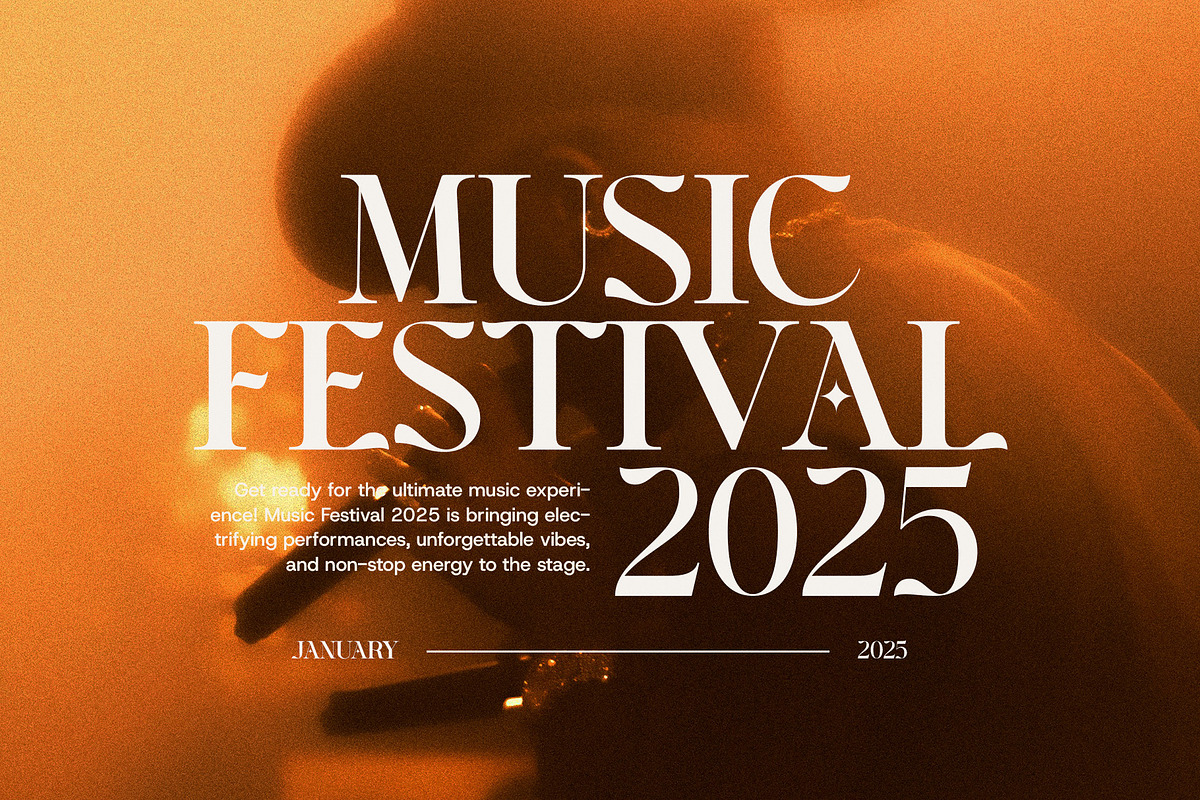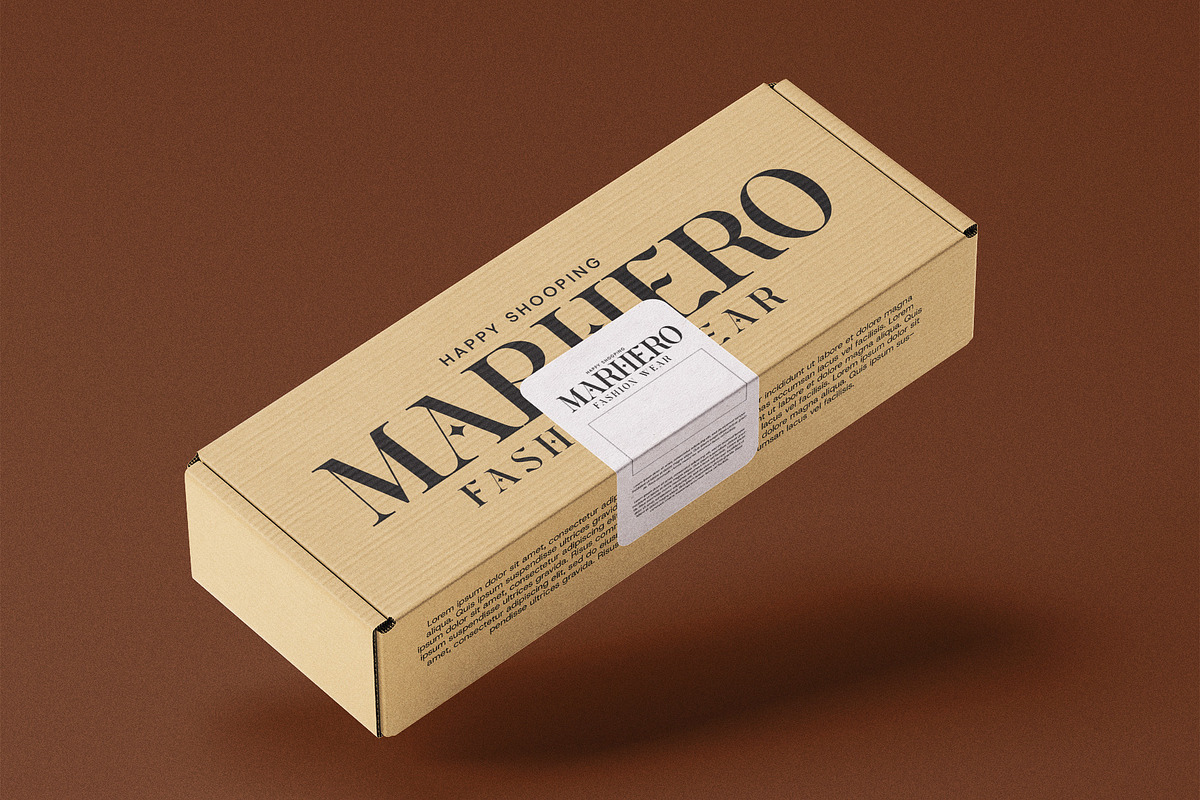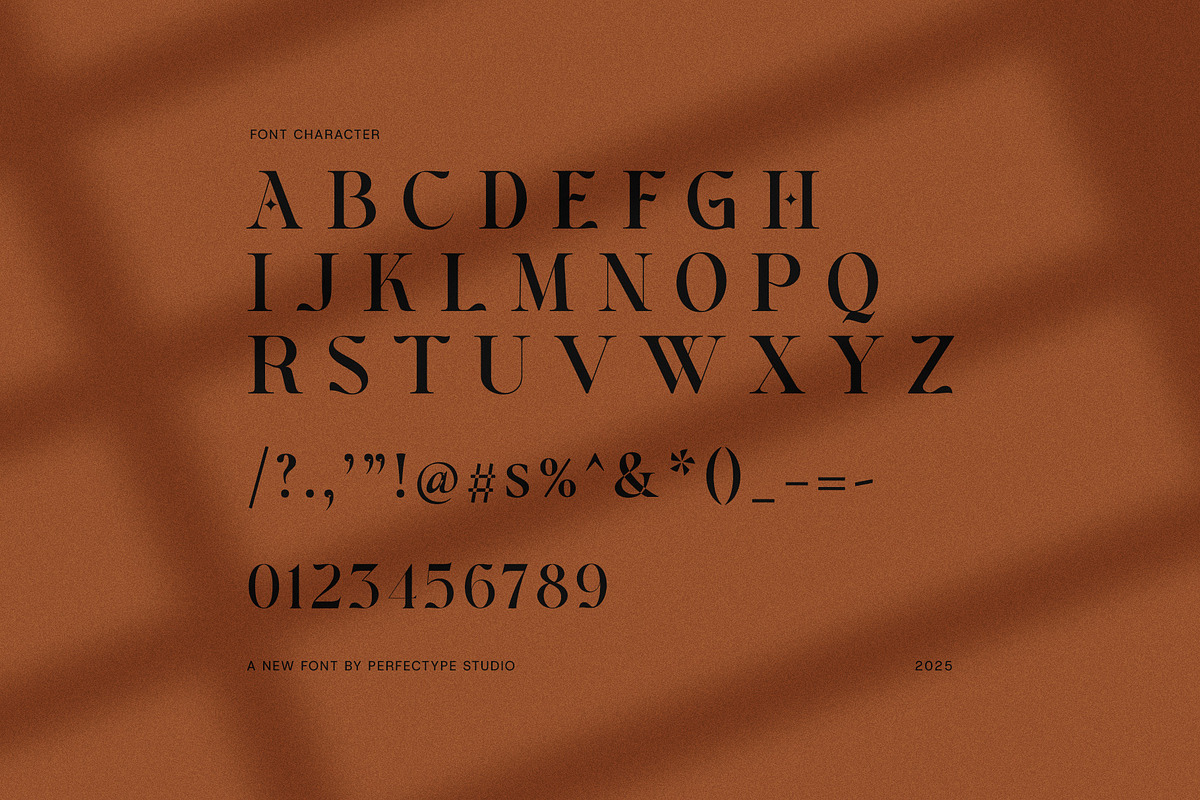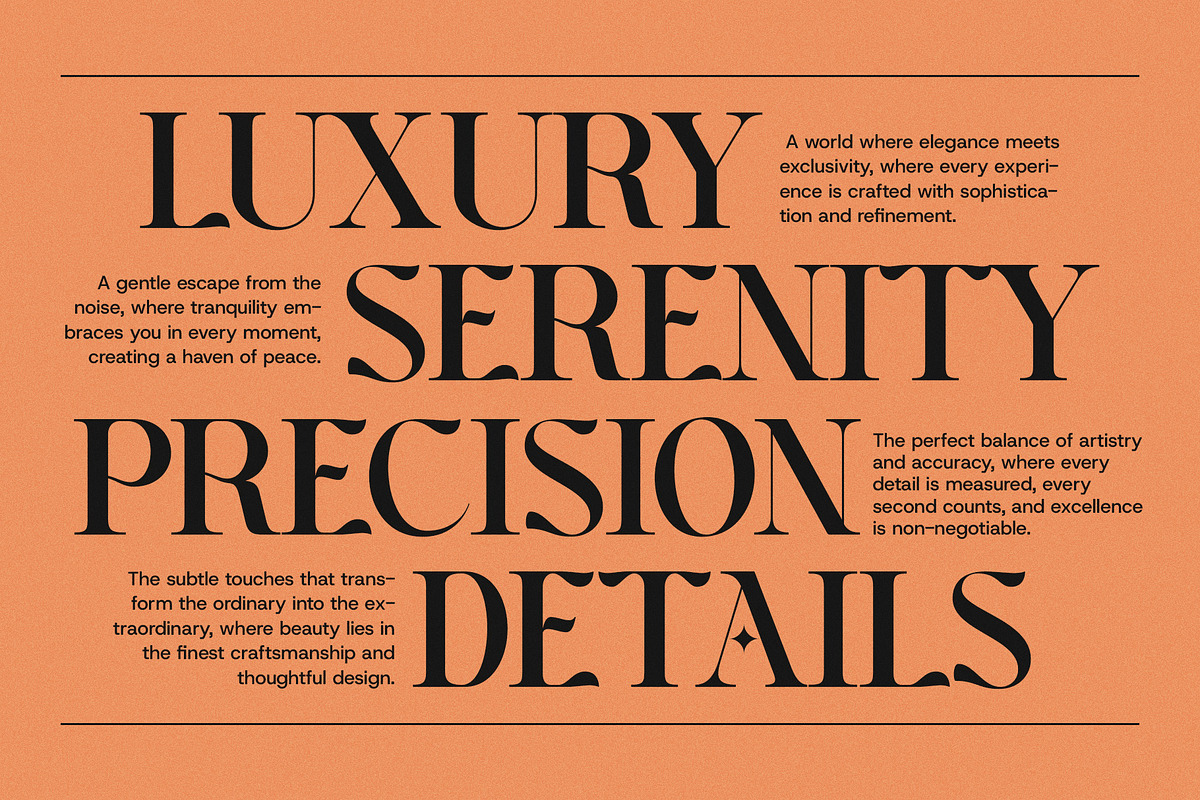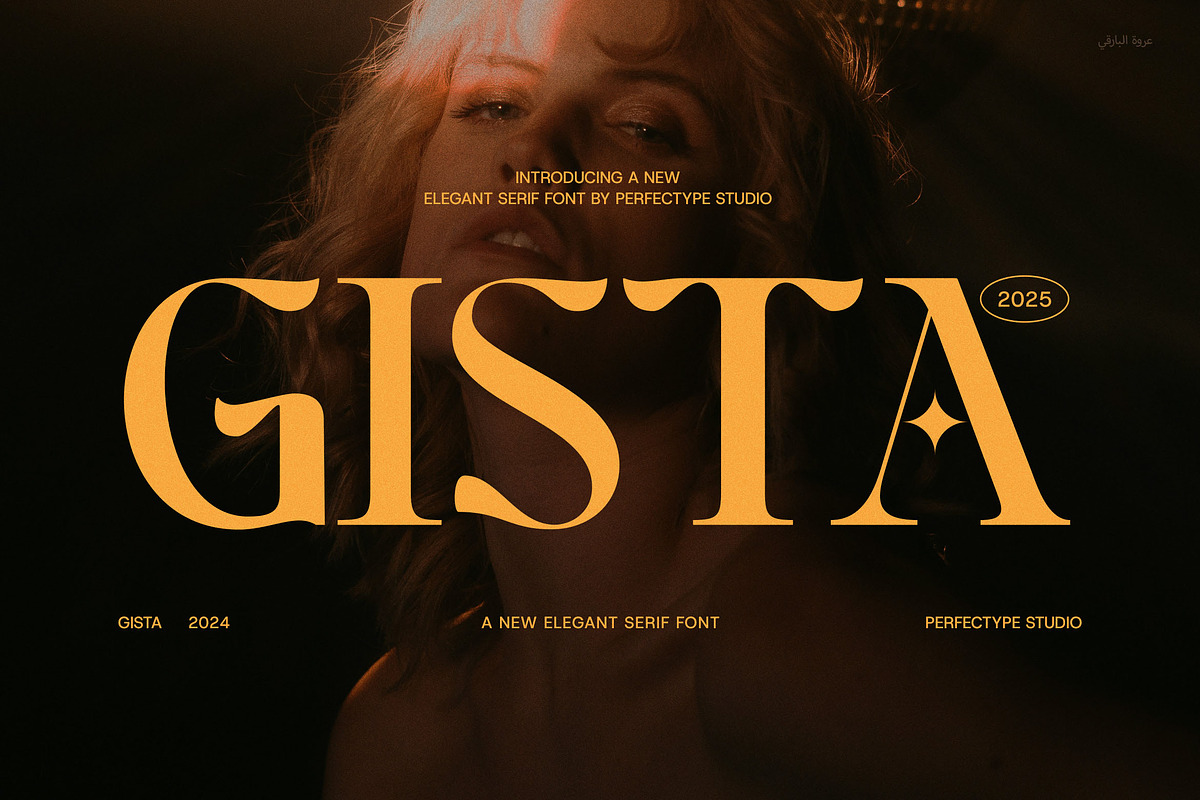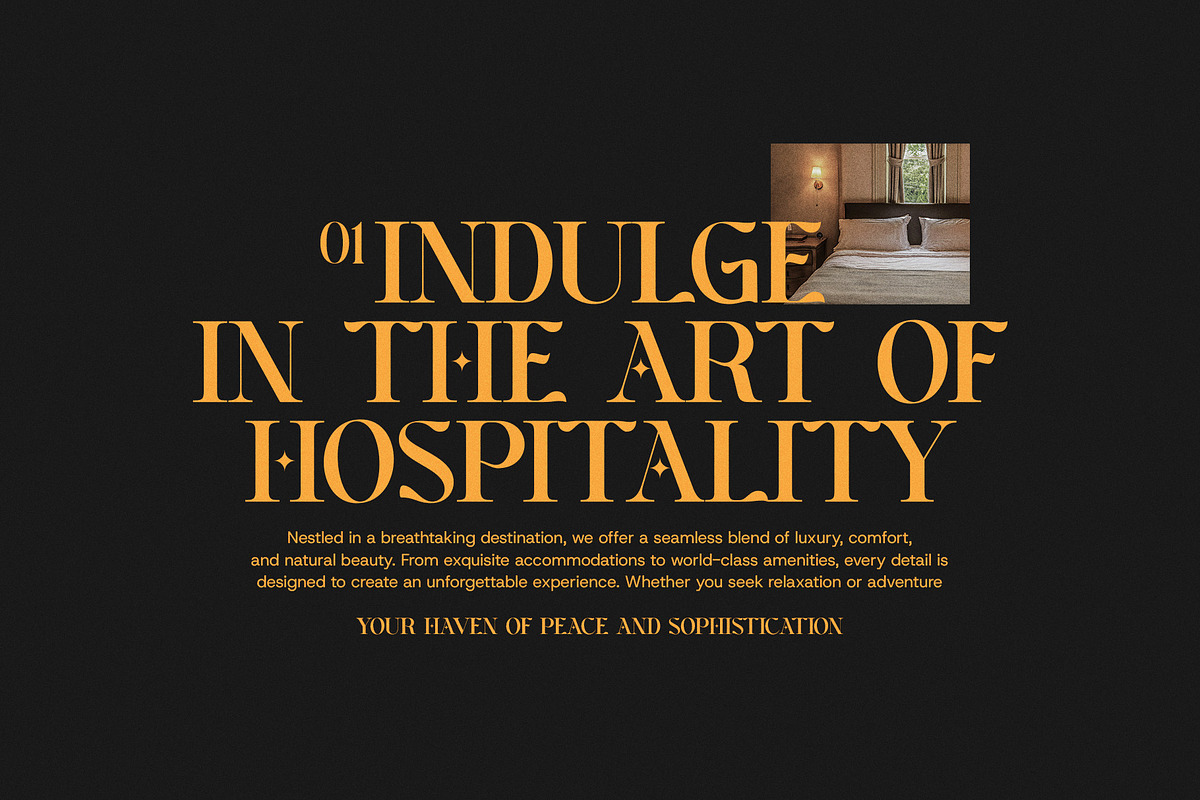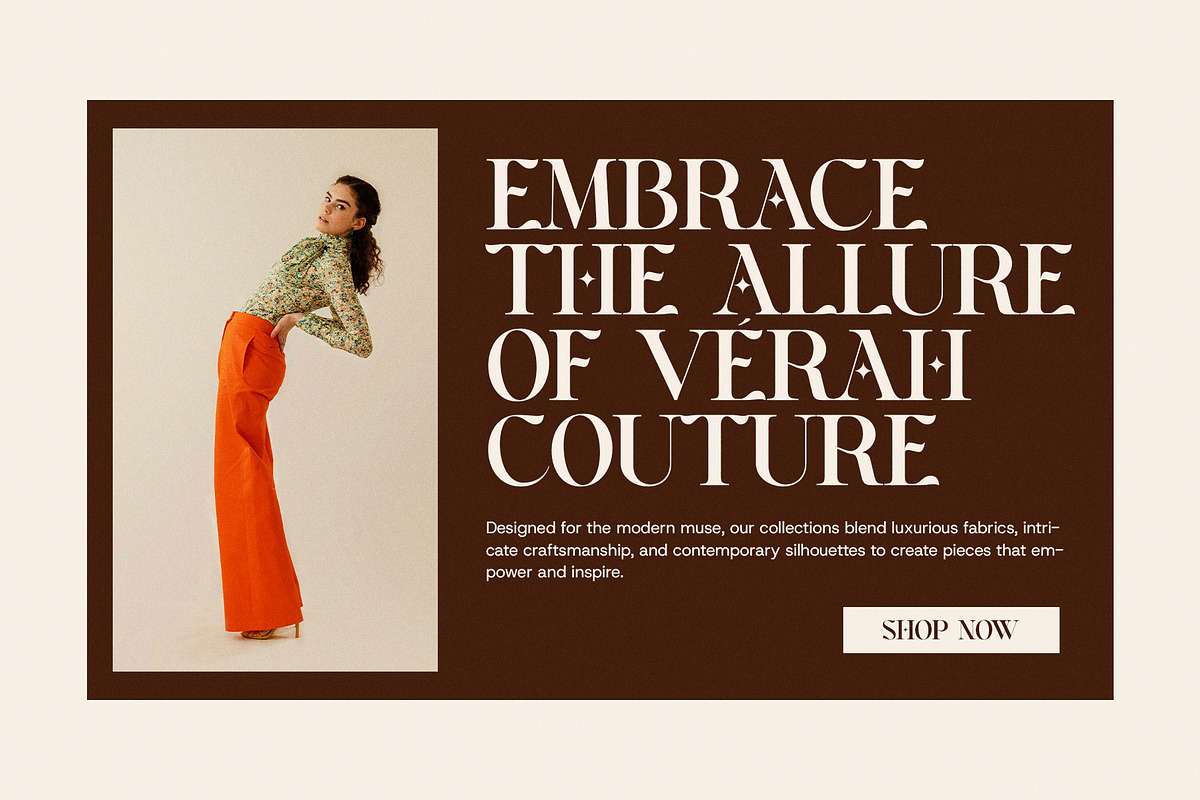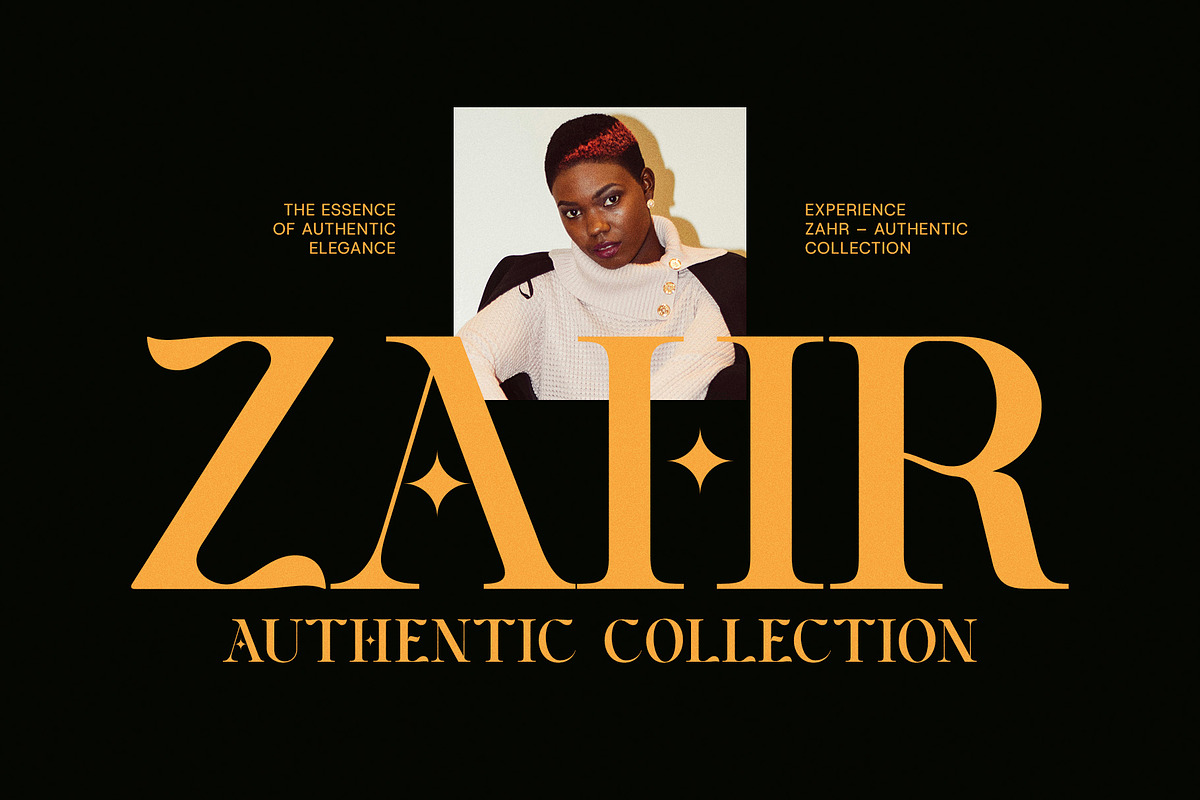
Gista Elegant Serif Font
Gista Elegant Serif Font – Timeless Elegance for Modern Branding
Meet Gista Elegant Serif Font, a modern serif typeface crafted with precision and sophistication. Its sleek lines and well-balanced proportions bring a luxurious yet professional look to any design. Whether you're working on a high-end logo, stylish magazine layout, or sleek website header, Gista is built to elevate your visual identity with elegance and clarity.
With functional and beautiful ligatures, this font adds a refined and unique touch to your typography. It's highly versatile, making it ideal for both digital and print media—whether it's fashion, beauty, food packaging, editorial content, or luxury branding. Designed for professional use, it adapts seamlessly to various creative directions, from minimalist aesthetics to bold, editorial designs.
This font is more than just stylish—it’s a branding powerhouse. Clean yet decorative, modern yet timeless, Gista sets the tone for premium and memorable design work.
Elegant modern serif with refined curves
Includes stylish ligatures to enhance design flow
Ideal for logos, packaging, websites, magazines, and social media
Professional results with a timeless feel
Fully scalable and highly legible across all devices
Great for luxury, fashion, lifestyle, and editorial brands